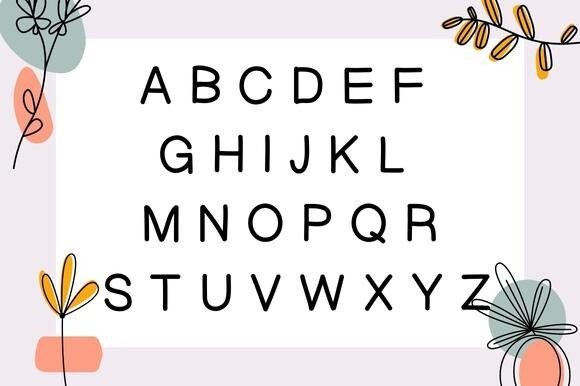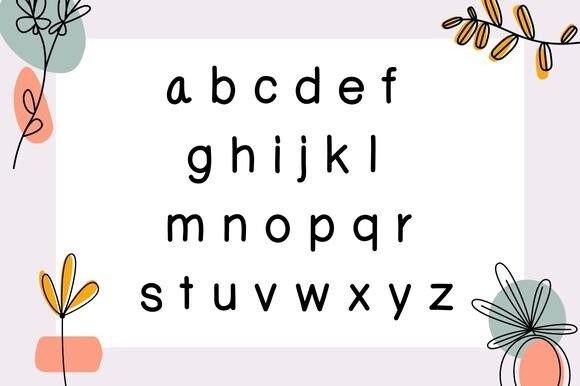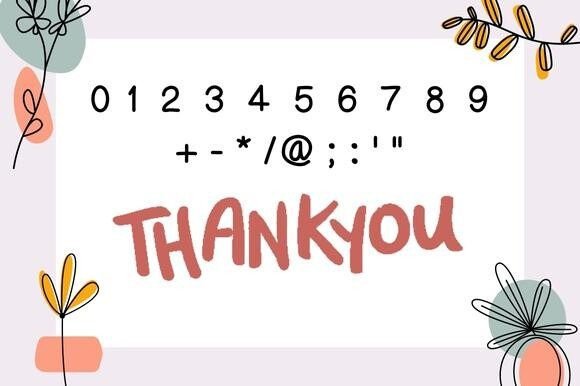
Introduction to Lingsaily Font
Have you ever been stuck on a design project, desperately searching for that perfect font to bring your creative vision to life? I’m sure we’ve all been there – the blank page staring back at us, the cursor blinking impatiently, and the nagging feeling that we’re missing that one crucial element. Well, today’s the day you can put that feeling behind you, thanks to the incredible Lingsaily Font.
| 👤 Author | FONT ASMO |
This sweet and friendly handwritten font is a game-changer for designers. Its natural and unique style makes it incredibly versatile, allowing you to let your imagination run wild and explore new possibilities. With the Lingsaily Font, you’ll have endless opportunities to create stunning designs that truly stand out from the crowd.
Key Features of Lingsaily Font
- Transparent background, allowing for seamless integration with any background or design element.
- Perfect for digital design, including graphics, logos, and typography, due to its high resolution and crisp details.
- Comes in a range of sizes, from 12pt to 72pt, making it versatile for various design applications.
- Designed with a focus on readability and visual appeal, making it an excellent choice for creative projects.
Honest Review: Lingsaily Font
I recently had the chance to work with the Lingsaily Font, and I must say it’s been a pleasant experience. As a designer, I’m always on the lookout for high-quality design resources, and this font definitely delivers. It’s free to download, which is a major plus for those of us on a budget.
One of the standout features of the Lingsaily Font is its high quality and versatility. It comes in a range of weights and styles, making it perfect for a variety of creative projects. Whether you’re working on a logo, brochure, or website, this font is sure to add a touch of sophistication and elegance.
- ✨ Transparent background, making it easy to use on any design
- ⚠️ Limited support for certain languages, which may be a concern for designers working on international projects
- ⚠️ Not ideal for use in small font sizes, as it may become difficult to read
Overall, I’m impressed with the Lingsaily Font and would definitely recommend it to fellow designers. Its high quality, versatility, and accessibility make it a valuable addition to any design resource library.
Tips for Getting the Most Out of Lingsaily Font
Experiment with different font sizes and styles to add visual interest to your design. Use the font in combination with other design elements, such as images and shapes, to create a cohesive look.
Common Use Cases for Lingsaily Font
The Lingsaily Font is ideal for creative projects, such as infographics, posters, and social media graphics. It’s also great for use in presentations and documents where a high-quality, unique font is needed.